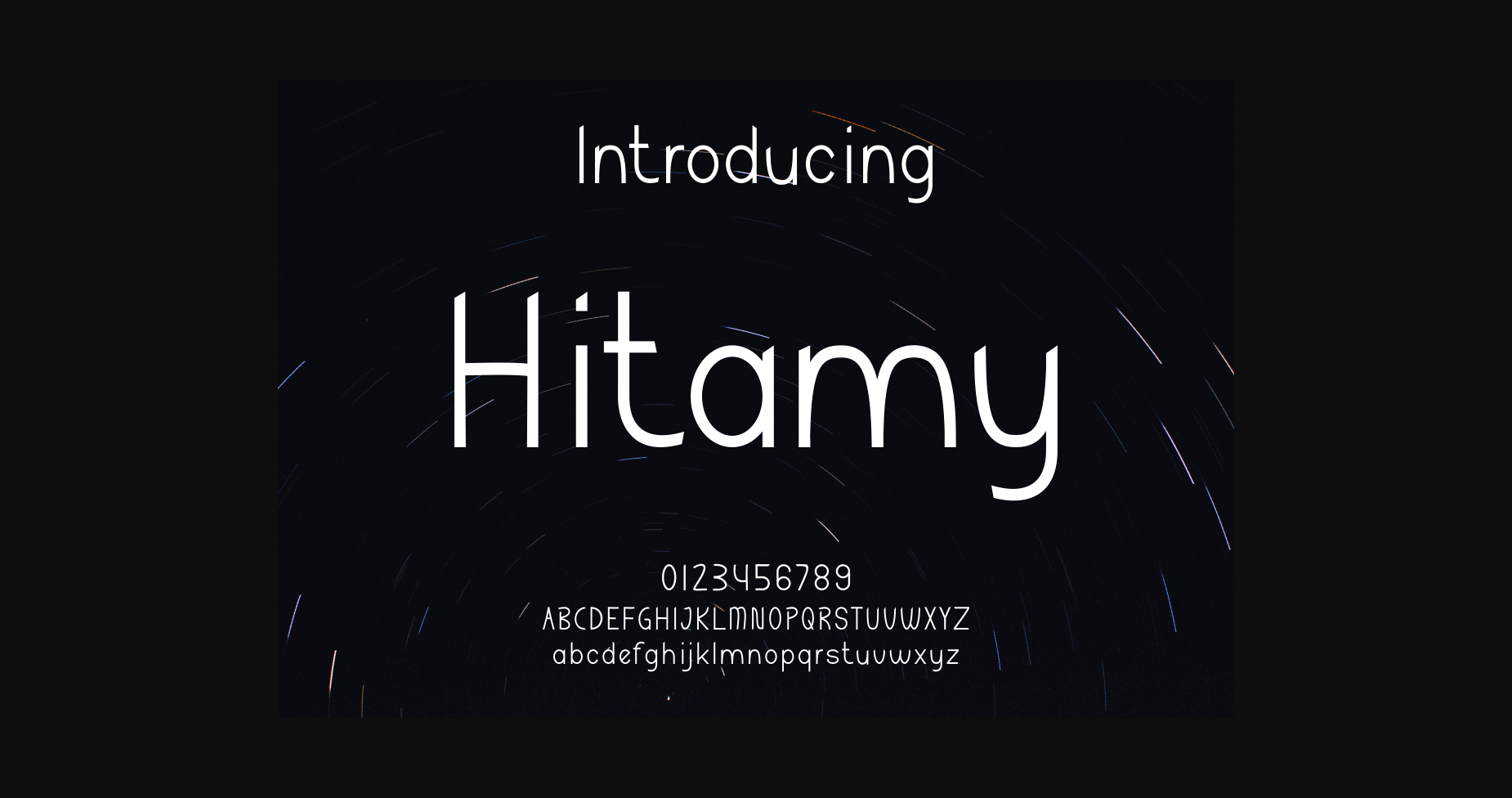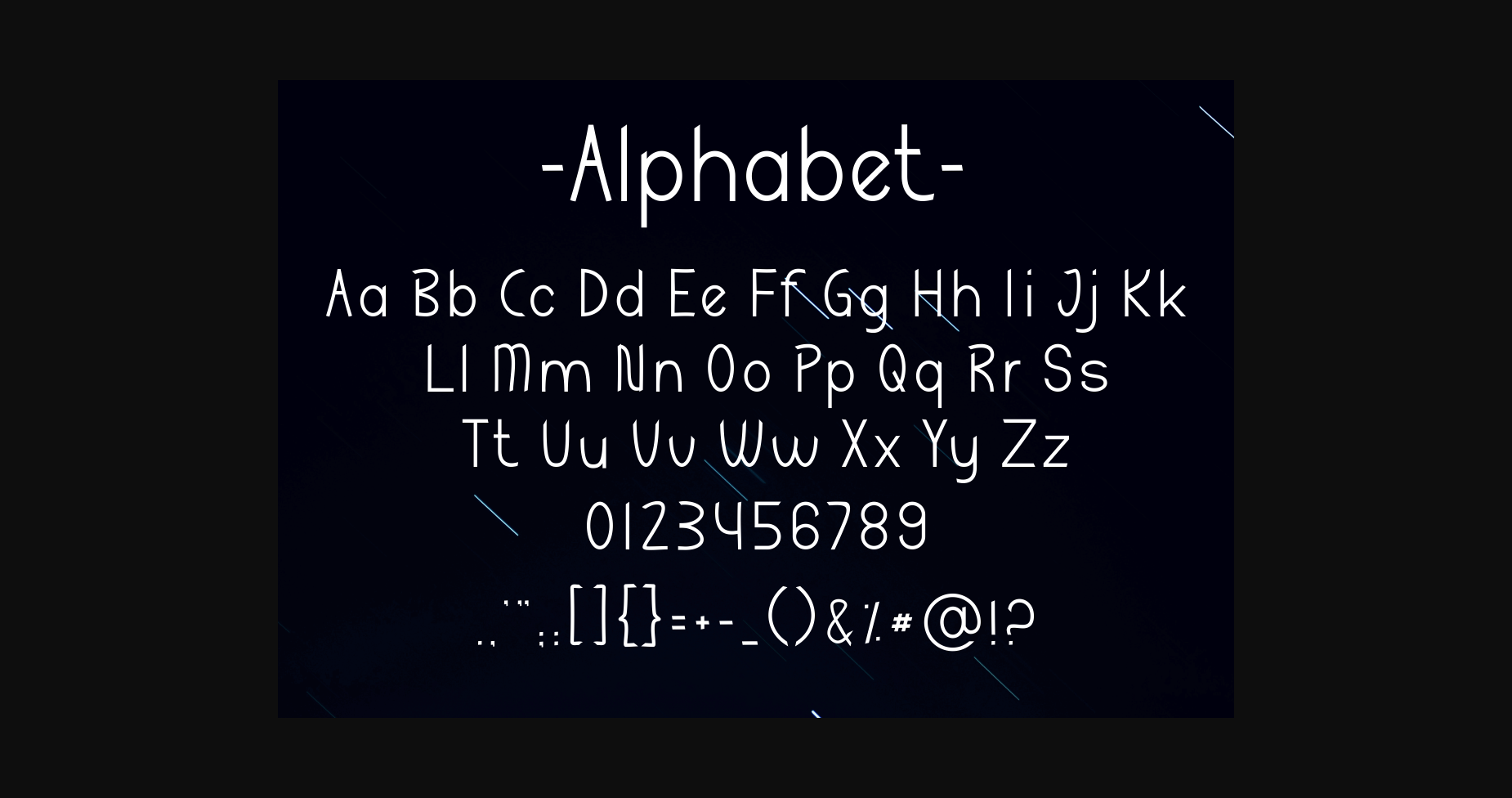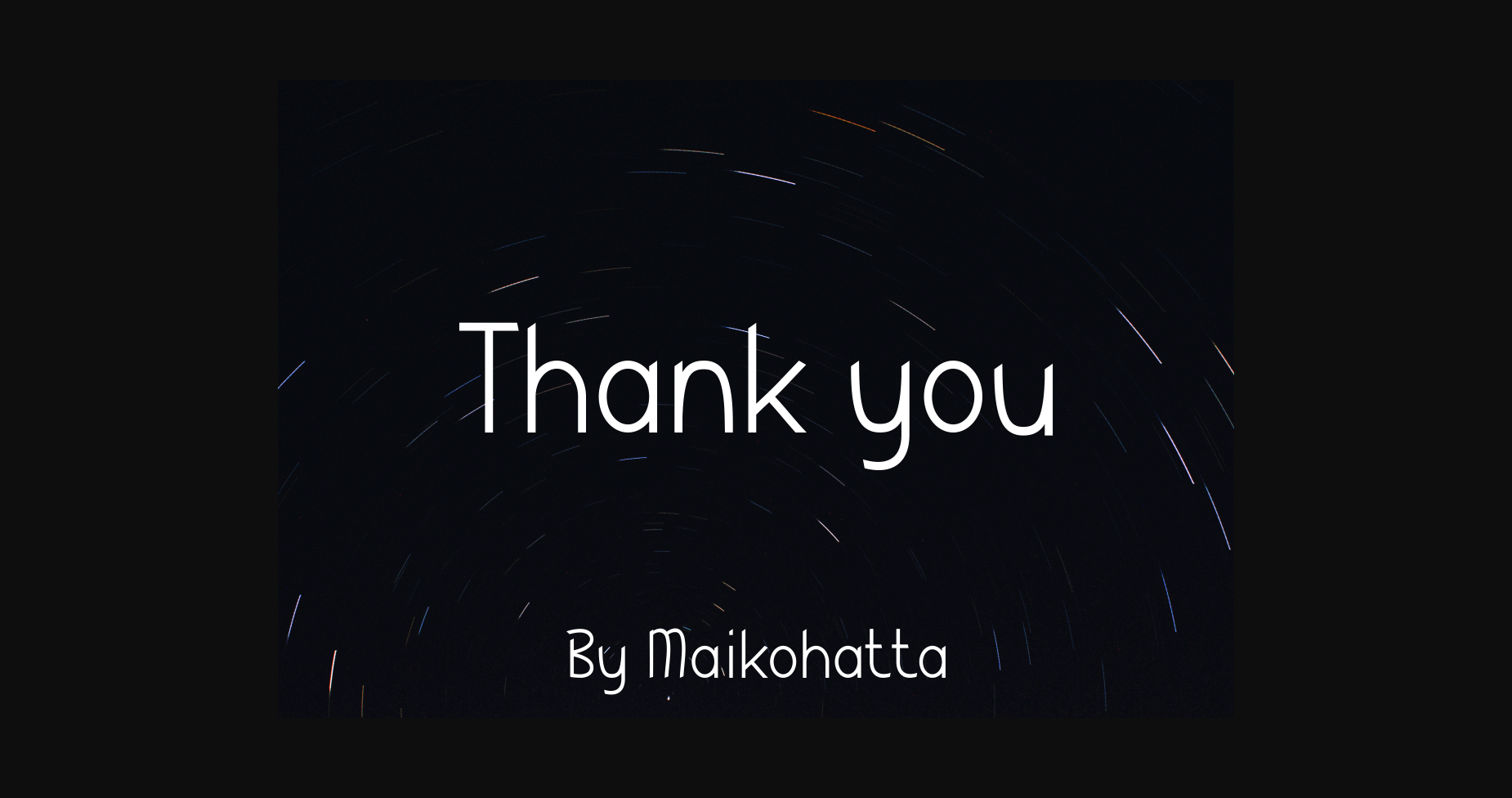
Hitamy Font
About Hitamy Font
Hitamy Font is a modern, thin-lettered sans serif font. Add it confidently to your creative projects and you will love the results!